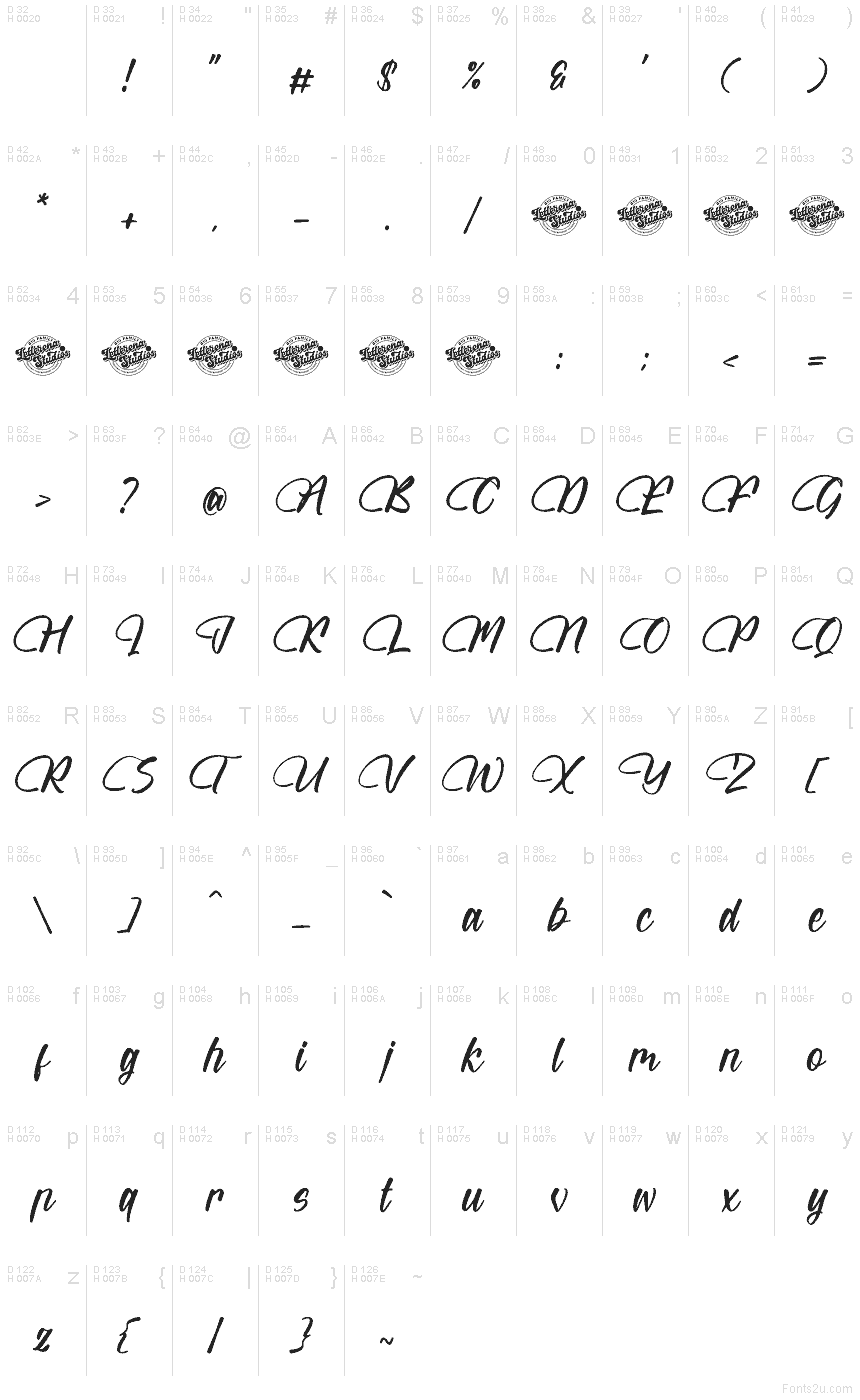
Wintter Bronks DEMO VERSION
Wintter Bronks font is a creation of Letterena Studios, offering the aesthetic impact of a brush script font with an alluring edge. Condensed and fresh, the font features uniquely-shaped letters with different proportions. The typeface achieves a sophisticated feel through its refined appearance which makes it fitting for elegant projects.
This free script font works well in signages, quotes, posters, covers or book covers and titles. It will also look good on branding designs such as product packaging, clothing items or in printed ads as well as general marketing materials. Whether you use it on digital or printable work – the end results will be perfect each time!